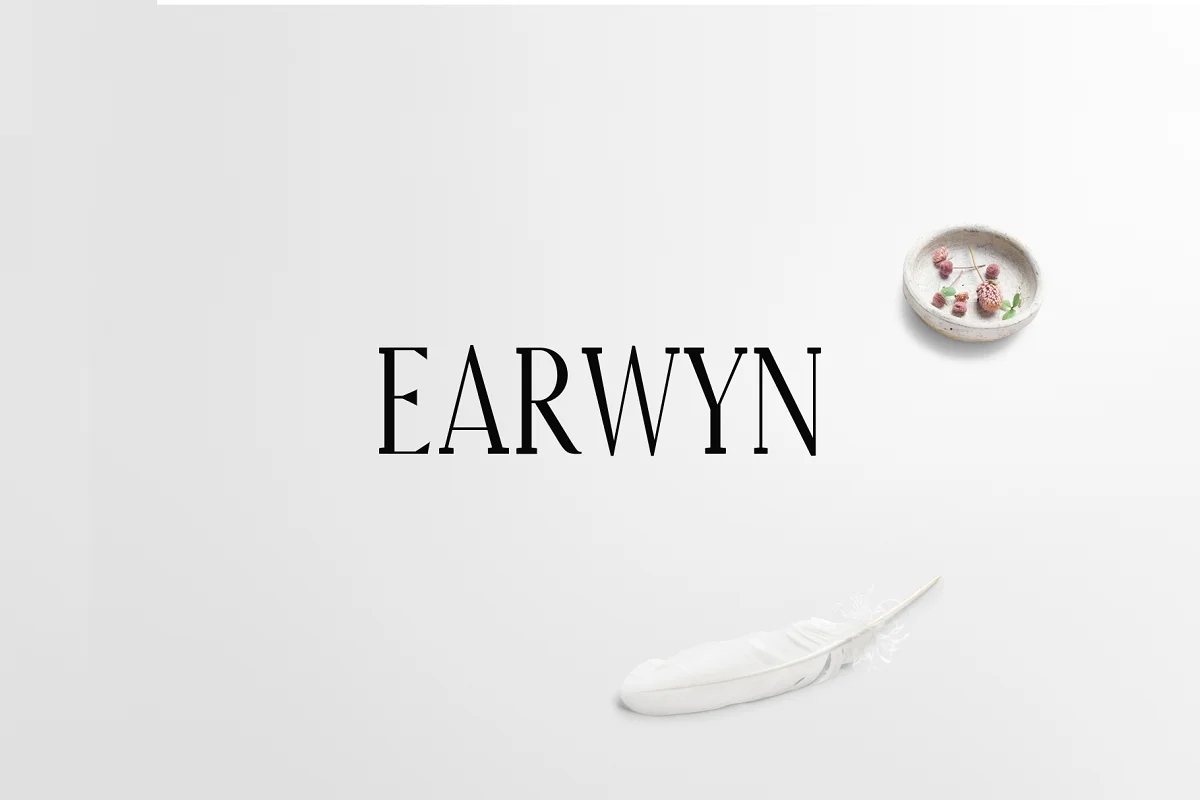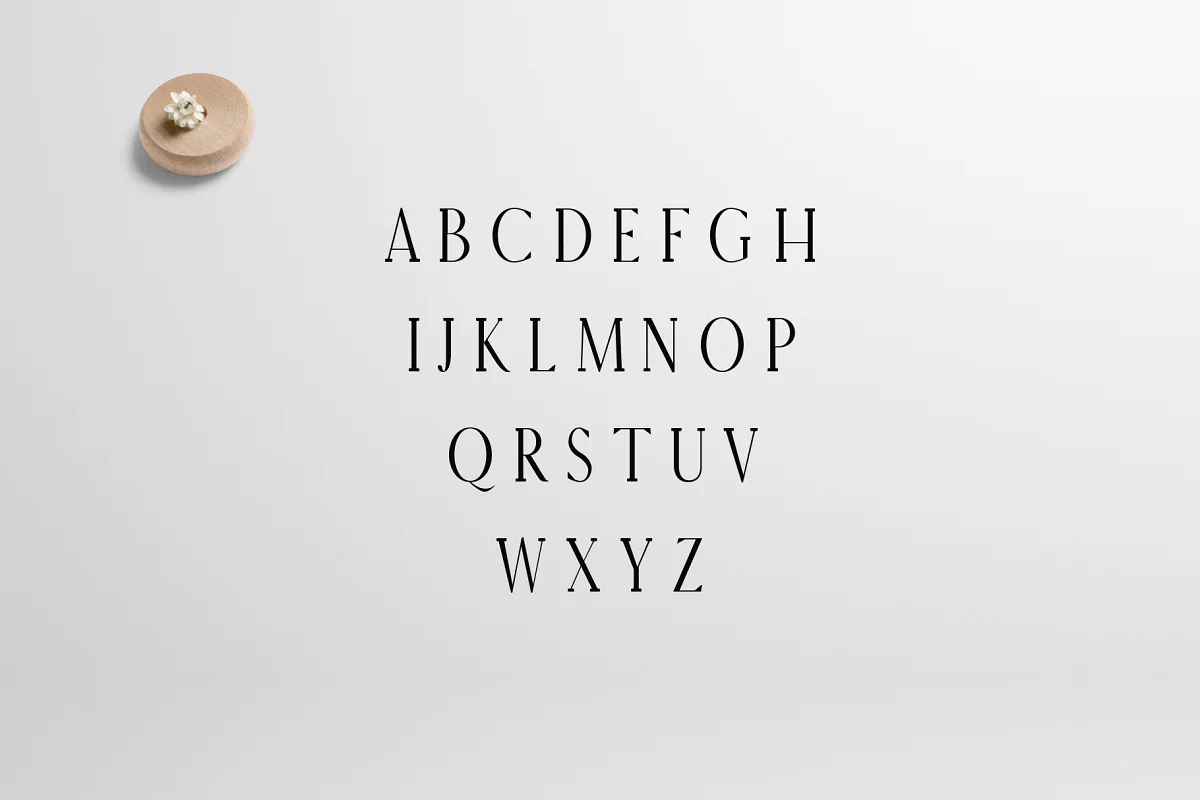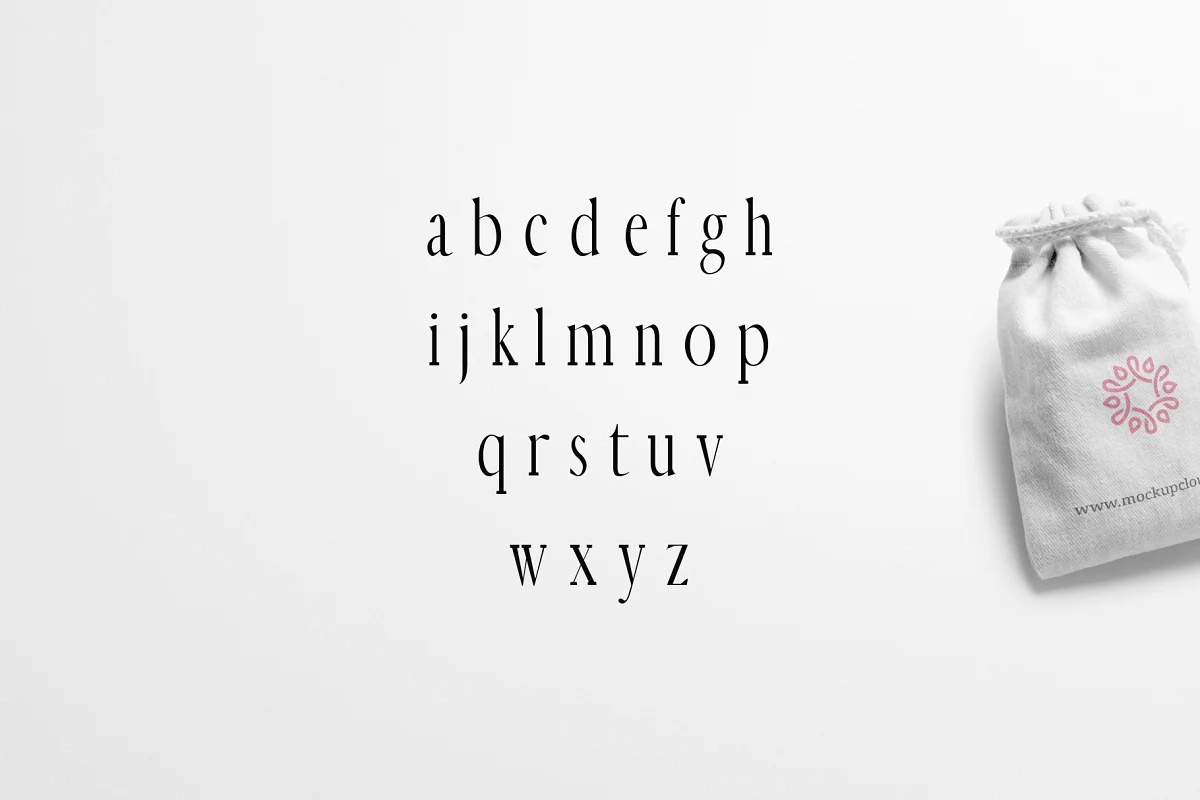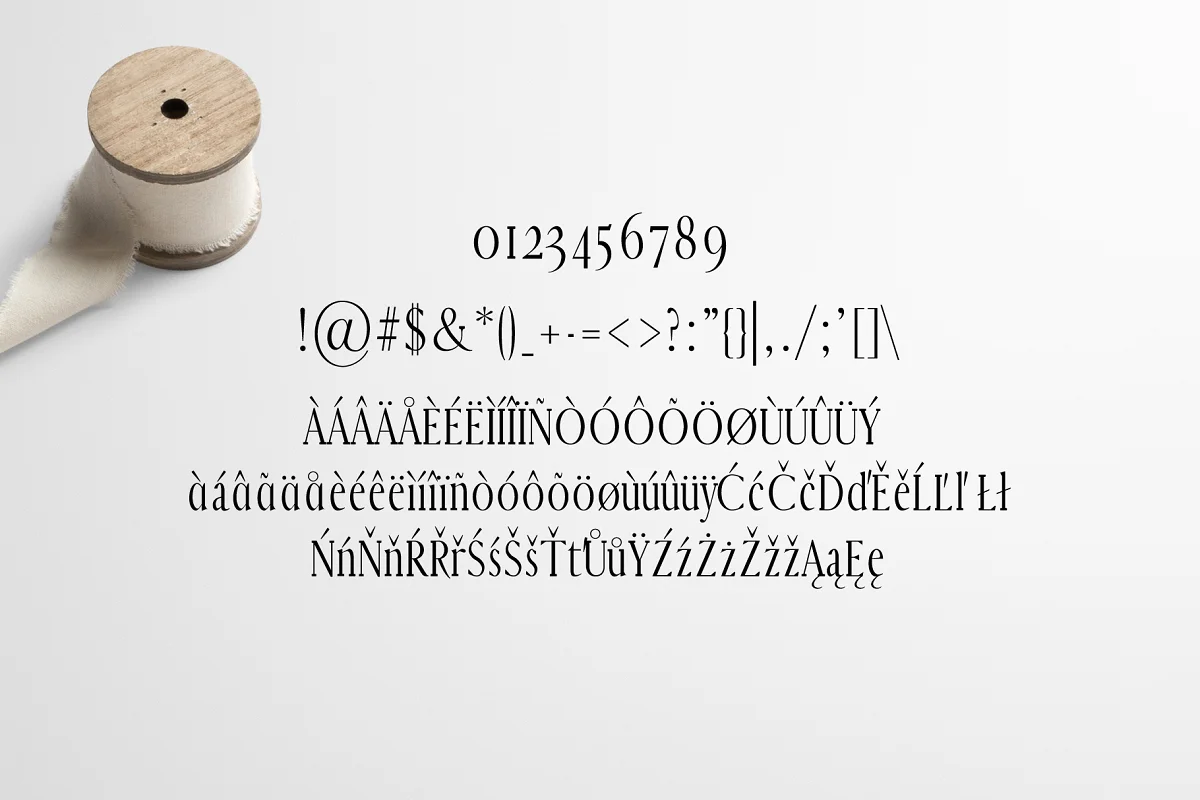
About the Earwyn Serif 3 Font
Earwyn Serif 3 Font Family Pack features a unique and modern serif look and feel. Perfect for gorgeous logos, titles, web layouts, and branding.
It looks gorgeous in all caps with a wide-set spacing if you want to try a classy look, or beautiful on its own in capital and lowercase letters for something completely timeless.
- Font Weight: Regular, Light, and Thin
Earwyn Font Features:
- Uppercase Multilingual Letters
- Lowercase Multilingual Letters
- Numbers